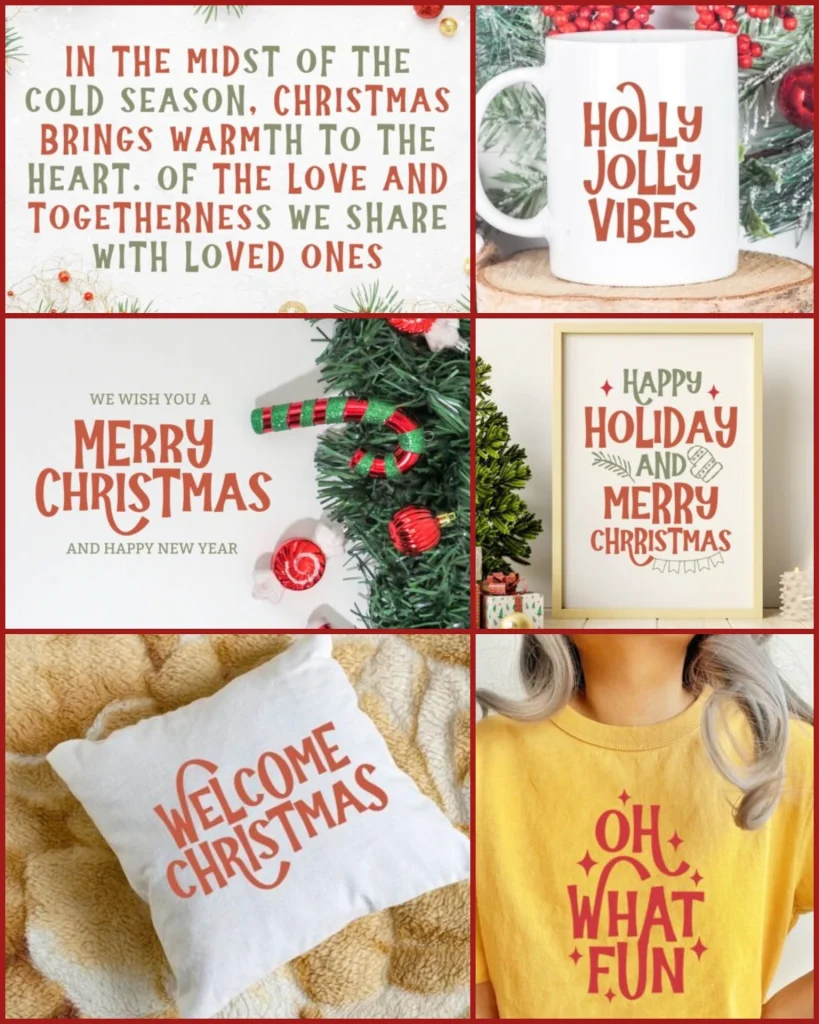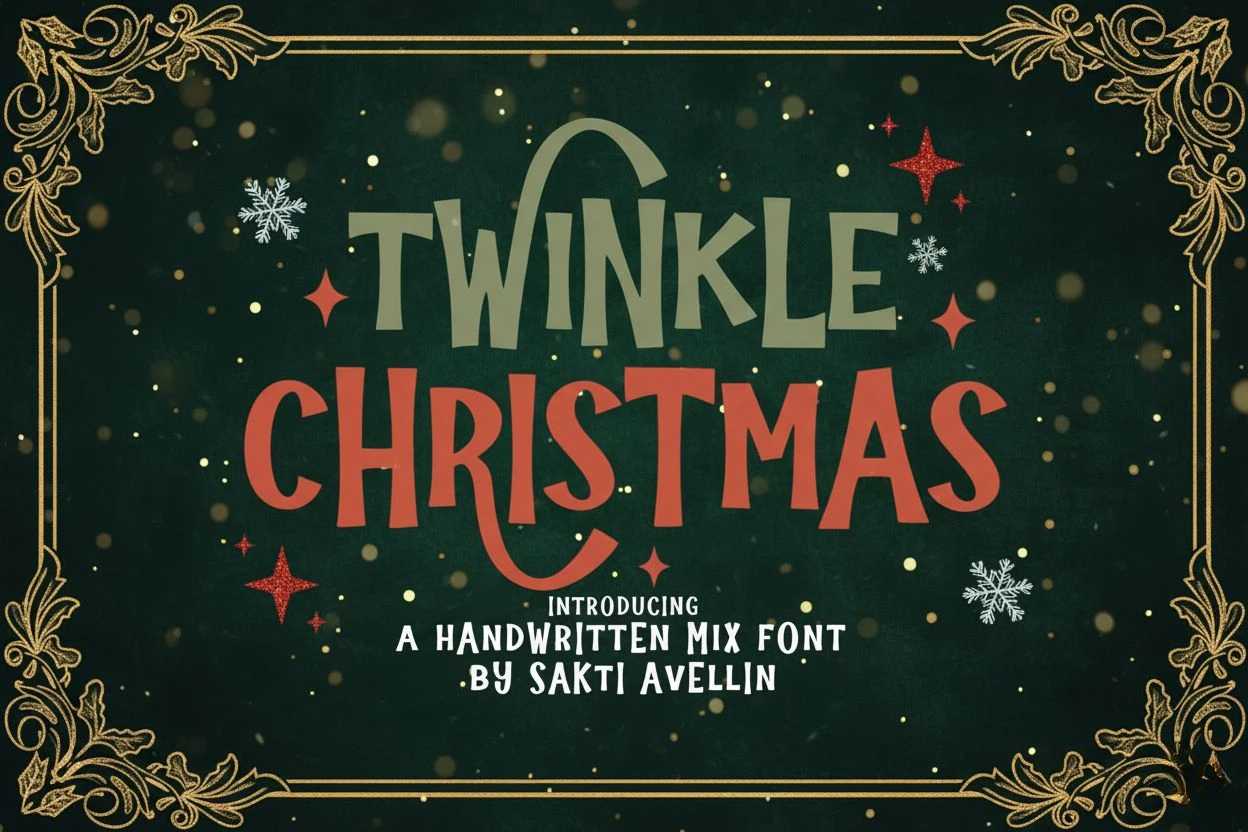
Twinkle Christmas is a charming handcrafted holiday font designed to bring warmth, joy, and festive magic to your creative projects. This unique typeface blends playful uppercase and lowercase letters, allowing you to mix and match for delightful, eye-catching results. With its bonus alternate mixes and whimsical handwritten style, Twinkle Christmas adds personality and sparkle to every design.
Perfect for Christmas quotes, greeting cards, invitations, cozy pillows, T-shirts, mugs, stickers, labels, sublimation, Cricut projects, and holiday crafts, this font delivers a cheerful handmade look that enhances the holiday spirit. Whether you’re designing festive merchandise or seasonal decor, Twinkle Christmas brings a cozy, joyful vibe to all your winter creations.